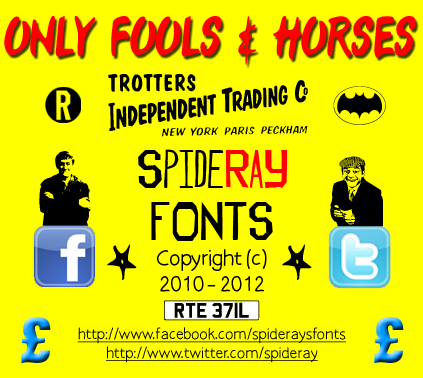
| Font name: | Only Fools & Horses |
| Author: | SpideRaYsfoNtS |
| Note by SpideRaYsfoNtS | |
| Created to pay homage to the excellent BBC series ONLY FOOLS and HORSES..... font based on the 1982 title sequence with the peeling labels. Need I say any more ! |